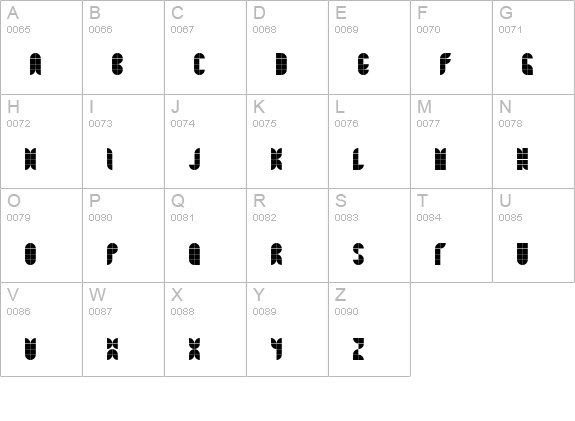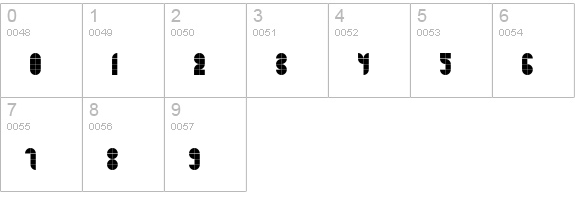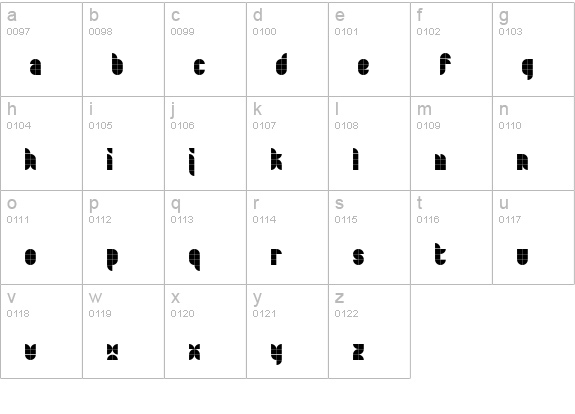
Bath Heavy is a heavy, high-impact variant in the Bath typeface family \xE2\x80\x94 well suited to high-impact headlines, posters, and display advertising.
Bath Heavy is a bold and striking typeface that exudes a sense of strength and confidence. Its thick strokes and distinctive letterforms make it perfect for headlines, logos, and other design projects that require a powerful visual impact. This versatile font is sure to make your text stand out and leave a lasting impression on your audience. And the best part? Bath Heavy is available for free download at FontsMarket.com. This means you can add this impressive font to your collection without breaking the bank. Don't miss out on the opportunity to enhance your designs with this eye-catching typeface that is both bold and beautiful. Download Bath Heavy today and take your projects to the next level!